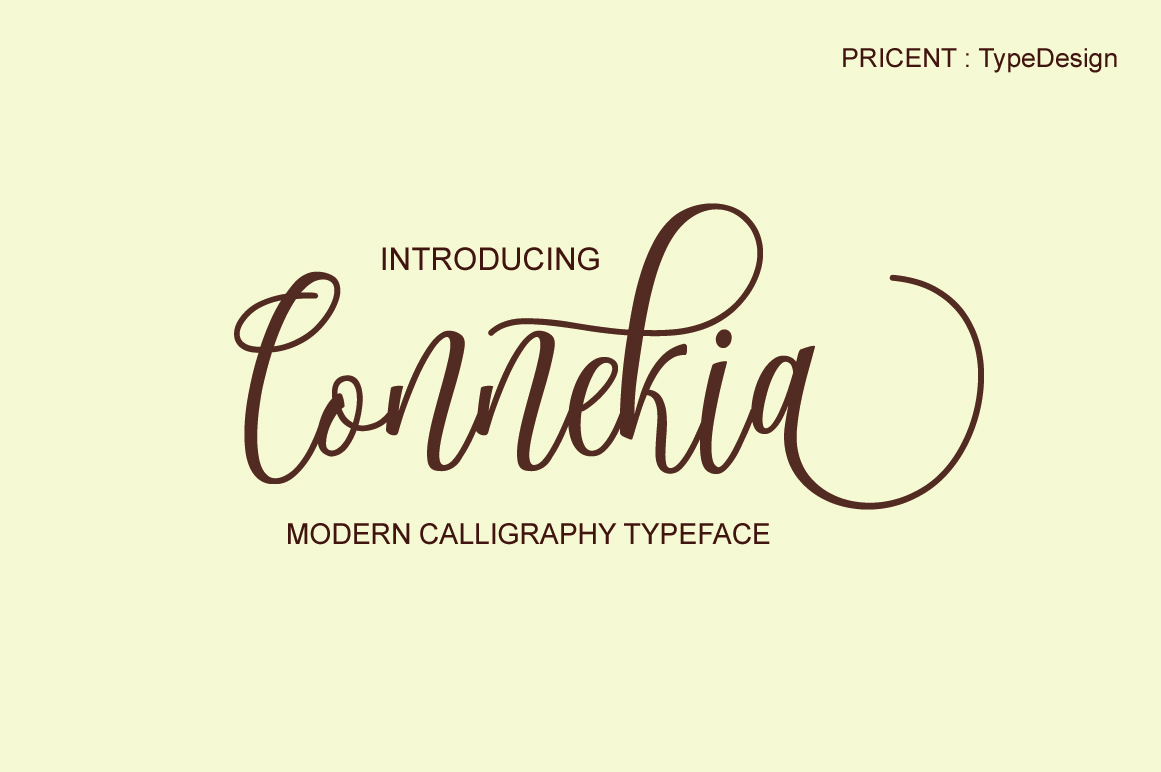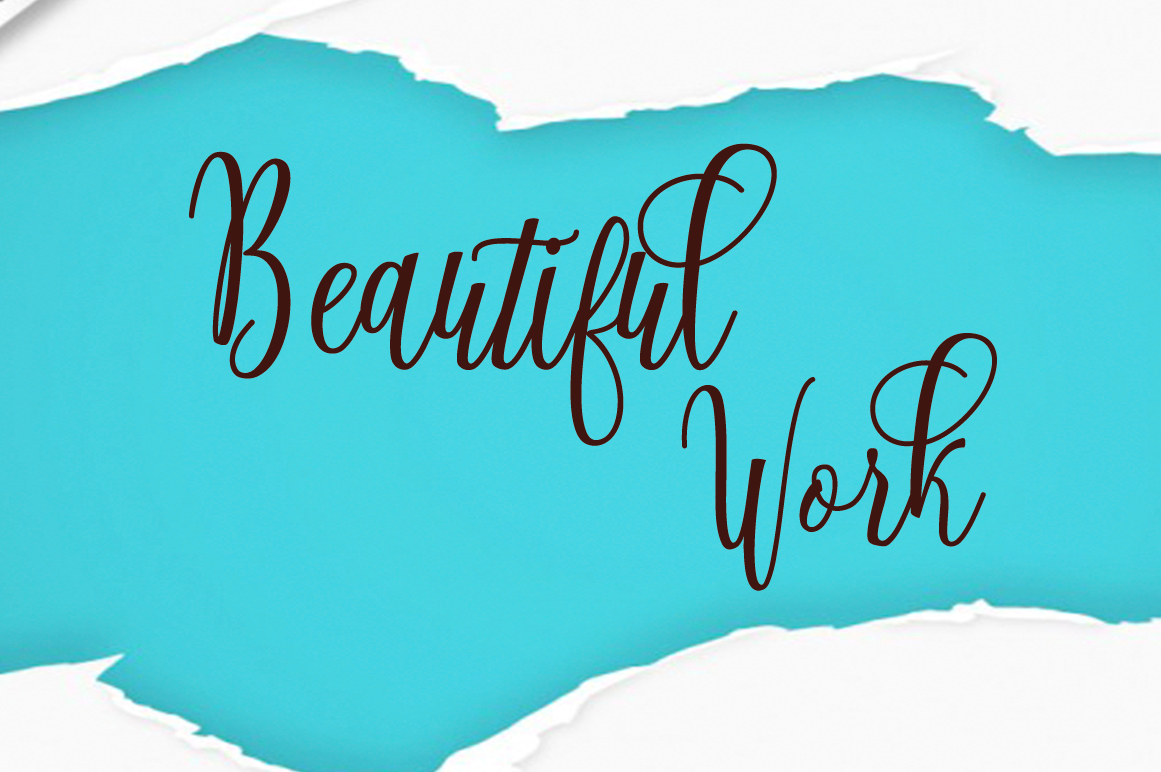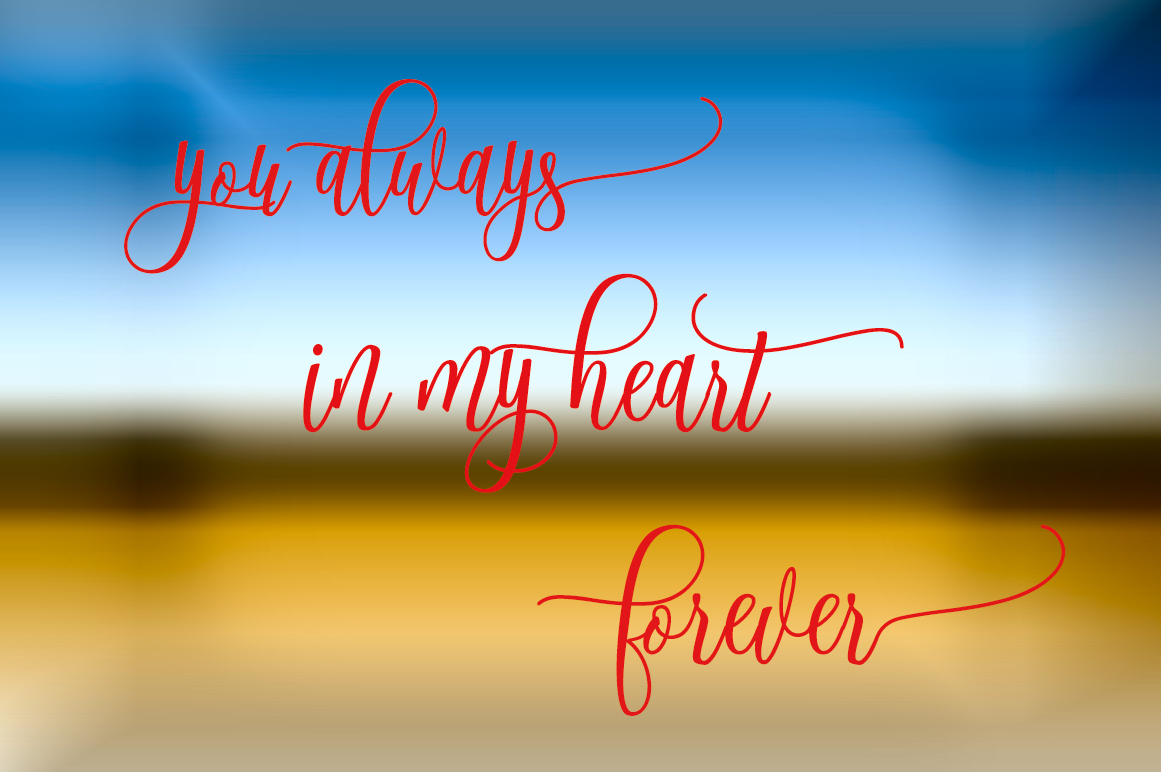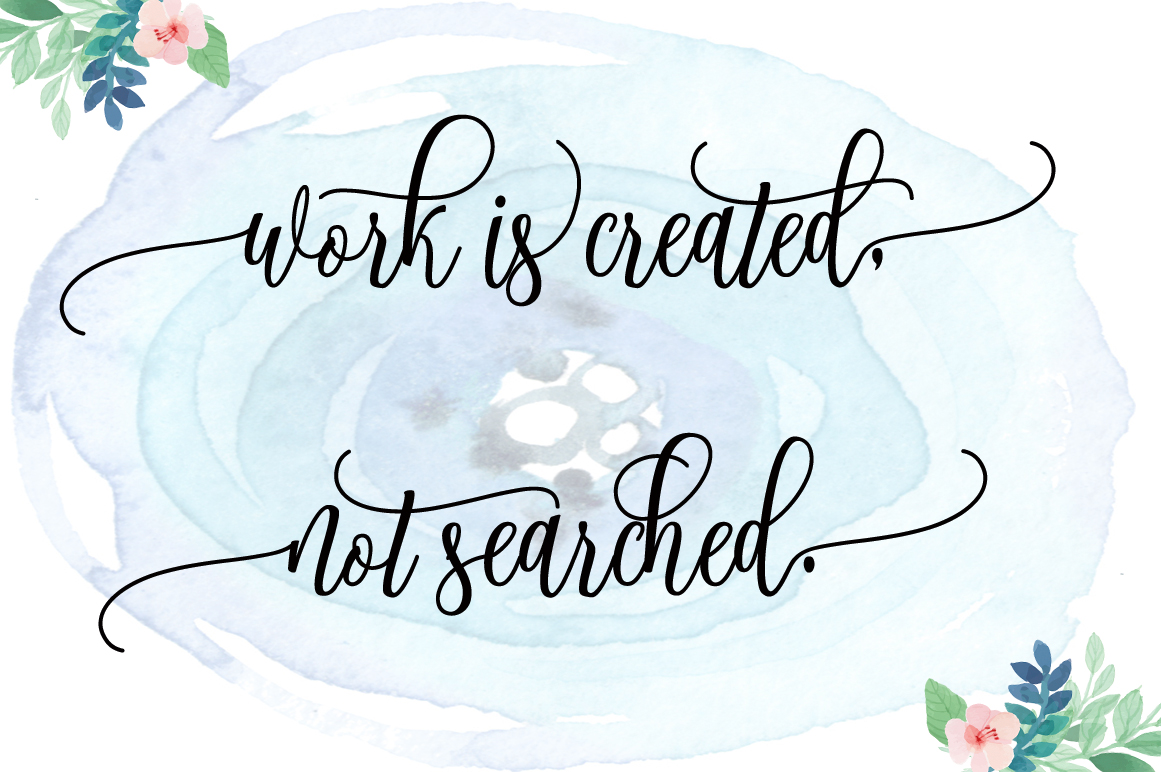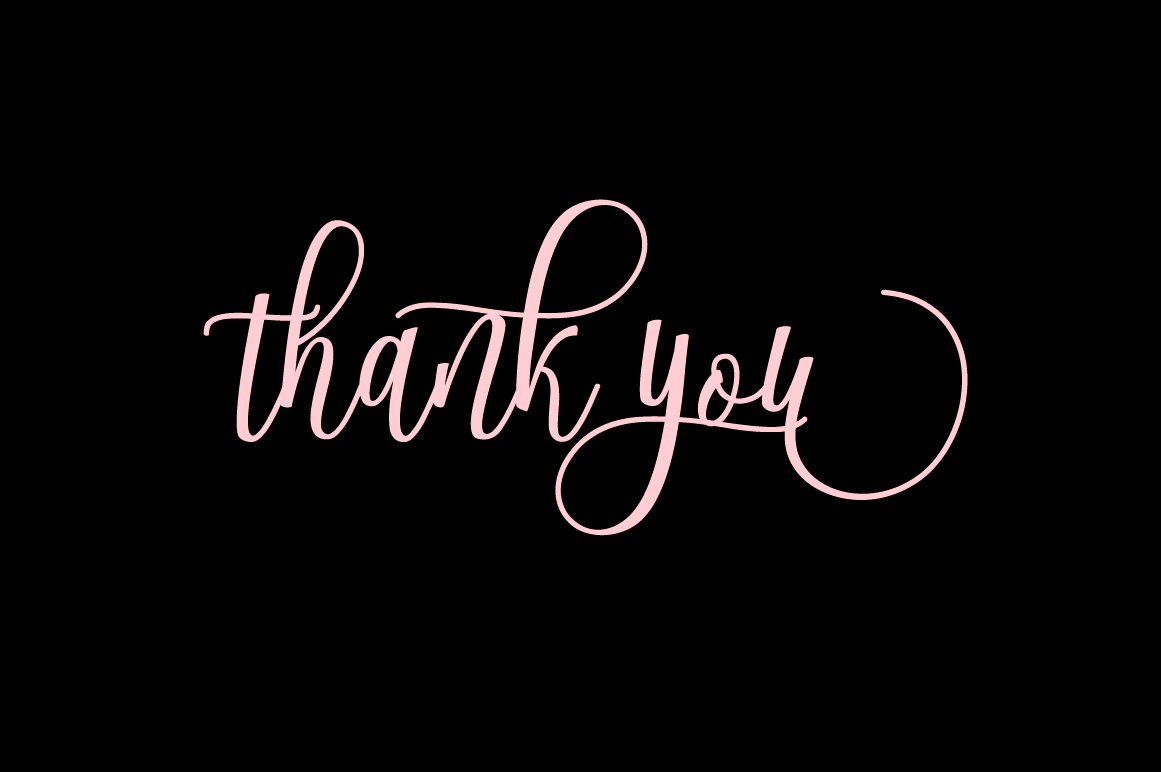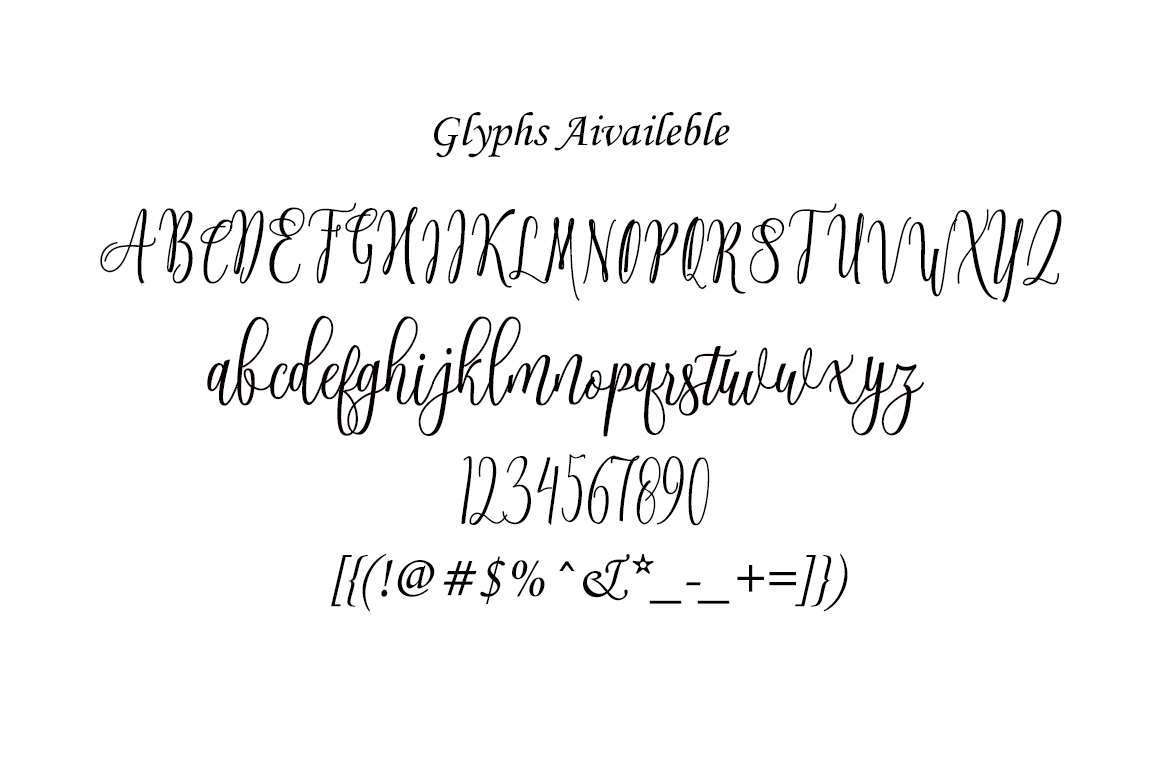
Connekia Font
About Connekia Font
Connekia can be described as lively – a script that happily dances across your designs. This uniquely formed calligraphy font is clean and modern.